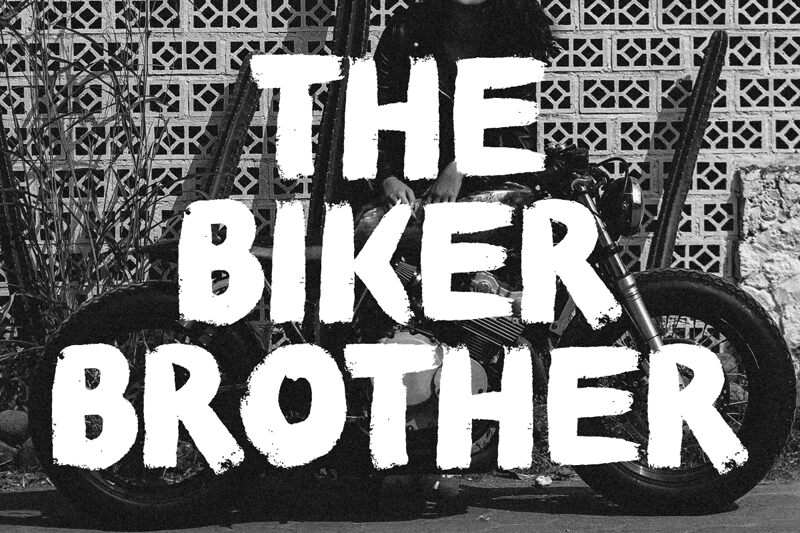
The Biker Brother, crafted by Fikryal Studio, is a bold brush font that exudes raw energy and rugged charisma. With its striking forms and dynamic strokes, this font captures the essence of bold adventure while maintaining an artisanal flair. The robust characters make a powerful statement, ensuring visibility and impact in any design.
Perfect for use in branding for motorsports events, outdoor apparel, or vibrant music festivals, The Biker Brother thrives where individuality meets daring expression. Its unmistakable style invites creativity in various applications-from eye-catching posters to spirited packaging designs-bringing a sense of rebellion and freedom to every project it graces. Embrace The Biker Brother to breathe life into your designs with a touch of fierce uniqueness.